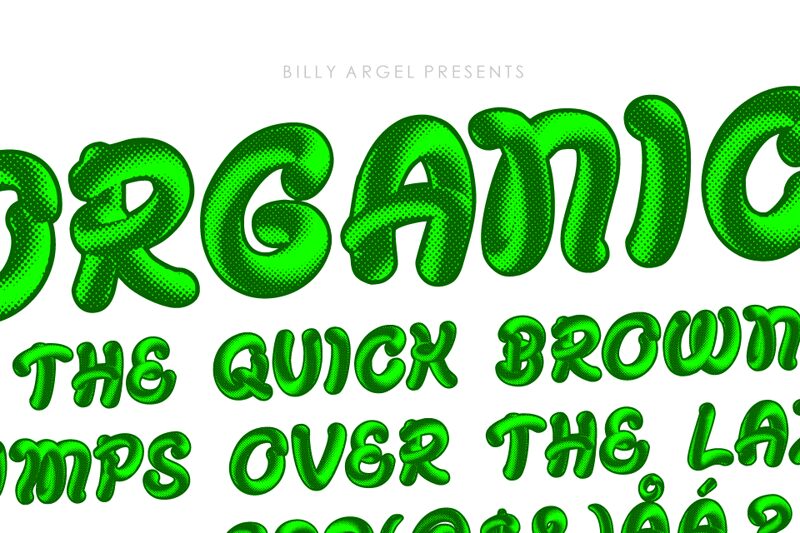
ORGANICAL Bold Italic, a striking display font from Billy Argel Fonts, adds a touch of whimsy and personality to your projects.
Its bold weight and italic style create an eye-catching impact, making it perfect for attention-grabbing headlines, posters, and logo designs. The decorative nature of this font infuses your designs with a unique charm that stands out from the crowd. Whether you're working on branding for a vibrant cafe, designing invitations for an artsy event, or creating visuals for a creative agency, ORGANICAL Bold Italic is the ideal choice to make your project shine.
Two Layered fonts!